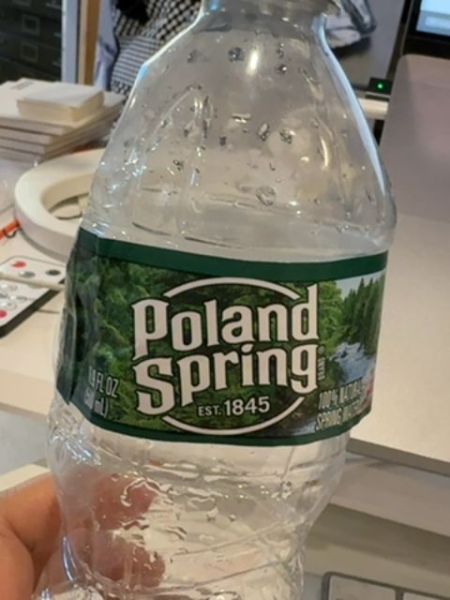
Poland Spring
Poland Spring is a brand of bottled water produced by Nestlé. It is sourced from multiple sites in the state of Maine and is known for being 100% natural spring water.
1845
USA
The typography on the label uses a bold, sans-serif font with a slightly condensed appearance. The font is distinctive with its thick, consistent stroke weight, providing a strong visual impact that is both legible and noticeable. The use of green and white for the text aligns well with the natural theme of the product.
The packaging features a clear plastic bottle with a green and white label. The label includes imagery of forested hills and a flowing spring, indicative of the product’s natural source. The bottle is lightweight and ergonomically shaped for easy handling.
- Introduced in 1845.
- Sources its water from multiple locations in Maine.
- Known for its distinct forest and spring imagery on the label.